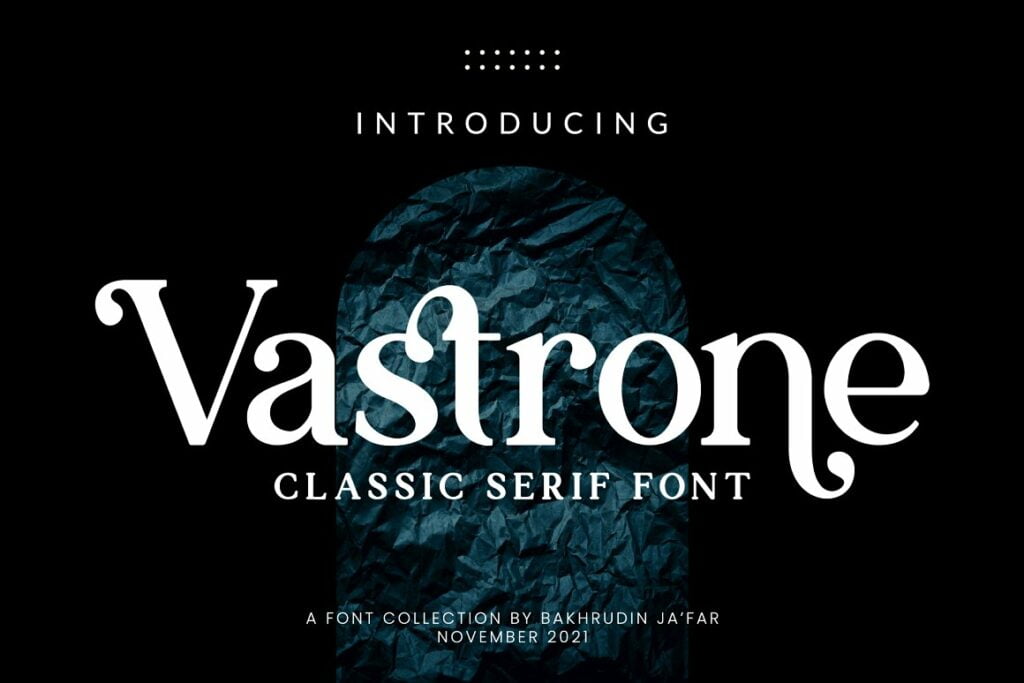
Vastrone Font
Vastrone Classic Serif Font is an elegant and bold serif font. Fall in love with its incredibly versatile style and use it to create gorgeous wedding invitations, beautiful stationary art, eye-catching social media posts, and much more!
Vastrone Classic Serif Font